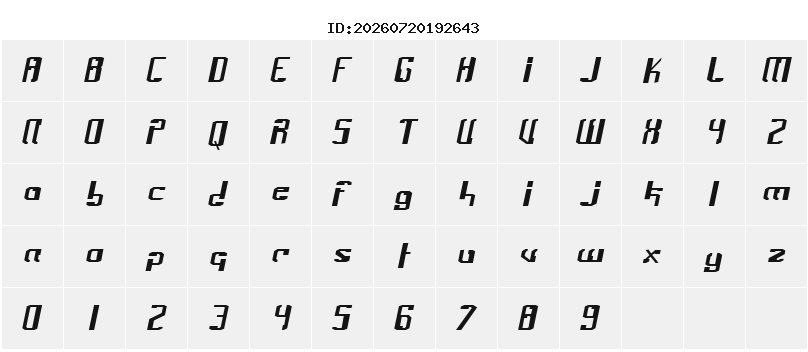
• Font Name: Frak
• Full Font Name: Frak
About Frak.ttf
Frak.ttf is a modern, elegant sans-serif font designed for ultimate readability and visual harmony. Perfect for branding, headlines, web design, and print materials.